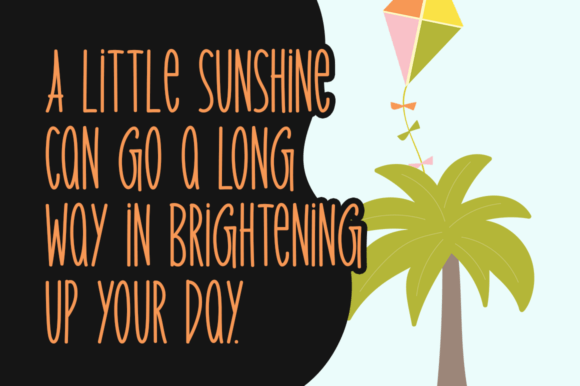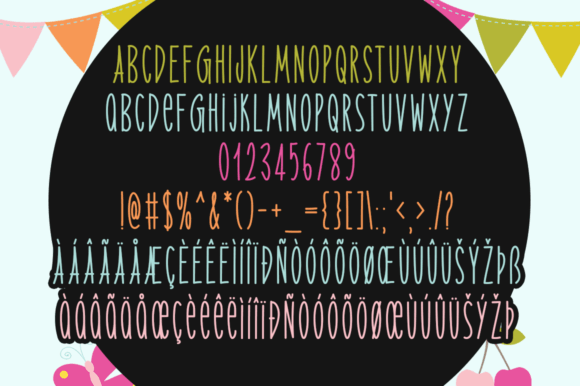
Mellow Sunshine is a fun and quirky handwritten font. It can easily be matched to an incredibly large set of projects, so add it to your creative ideas and notice how it makes them stand out!
Mellow Sunshine Font